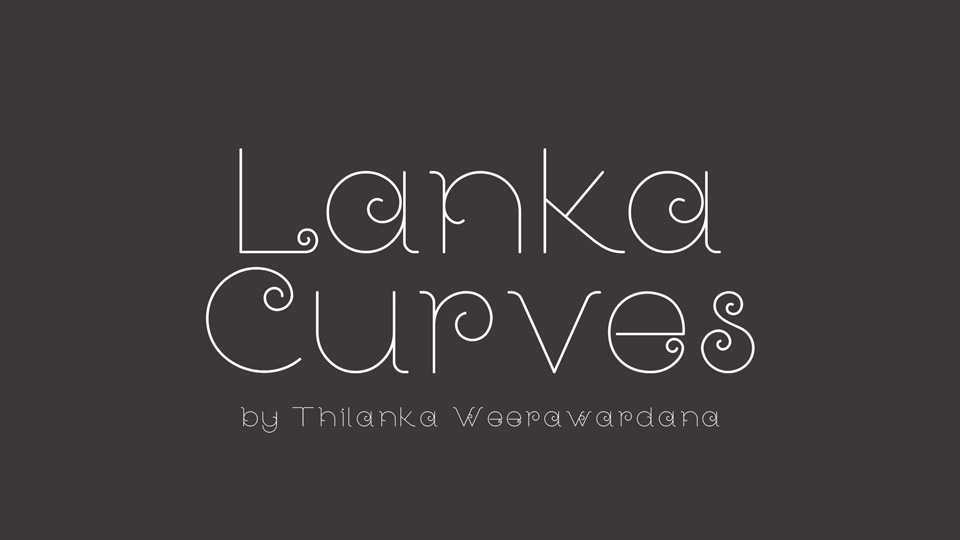
Download Lanka Curves font, a decorative typeface dragged as it exposes the shapes in traditional Sri Lankan designs. In the Sinhala Art alphabet, the ‘Wakadeka’ design created with two-tone pattern made out of curve shapes.
Designer: Thilanka Weerawardana